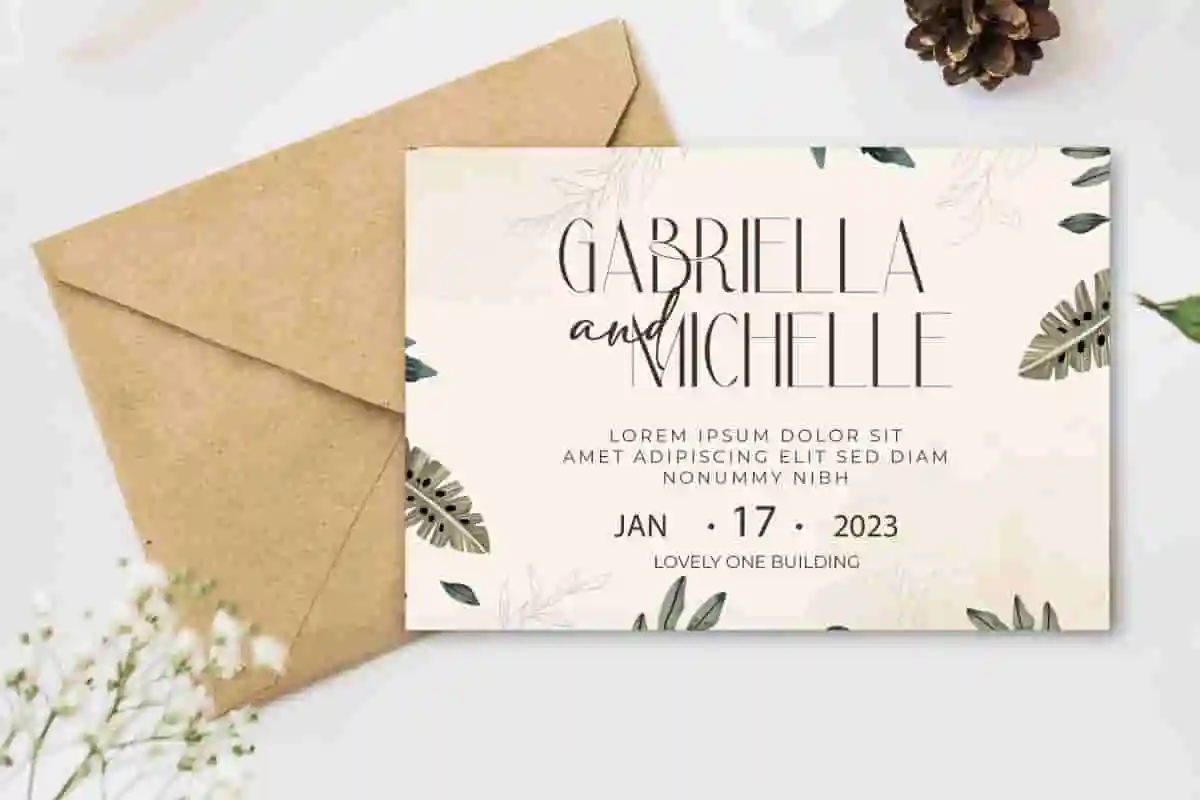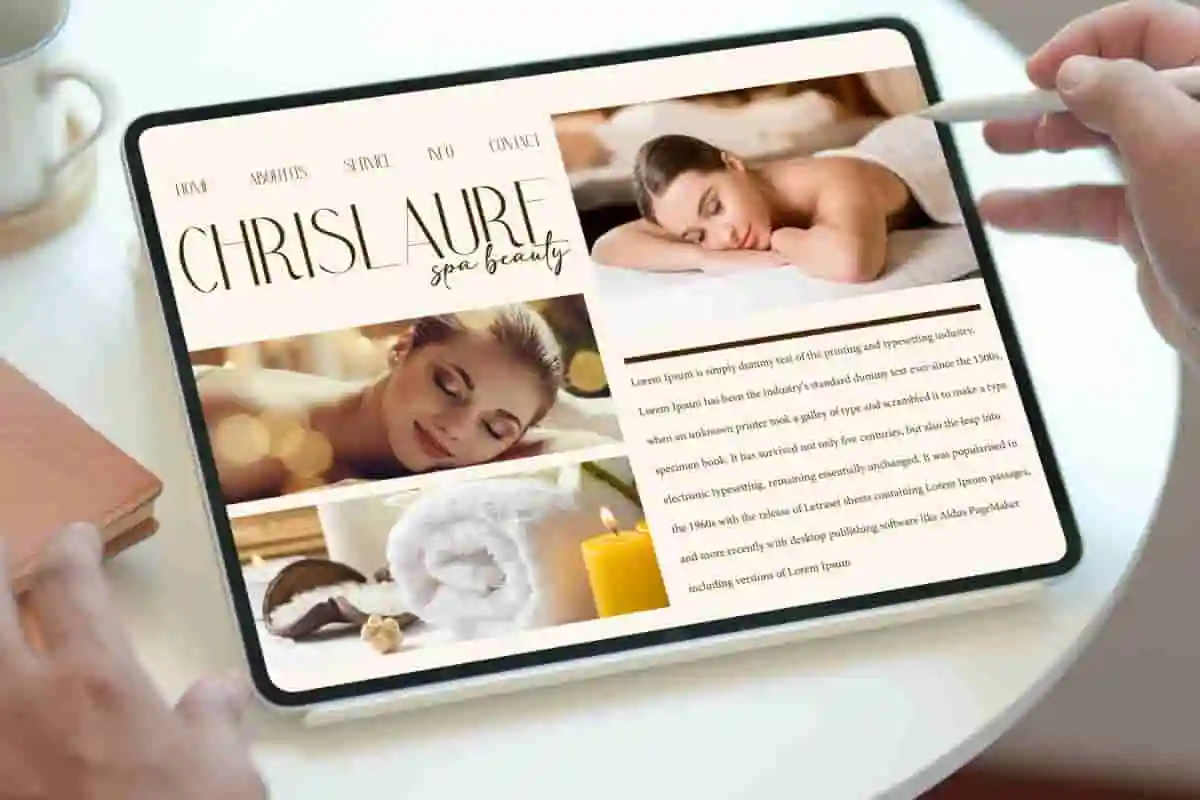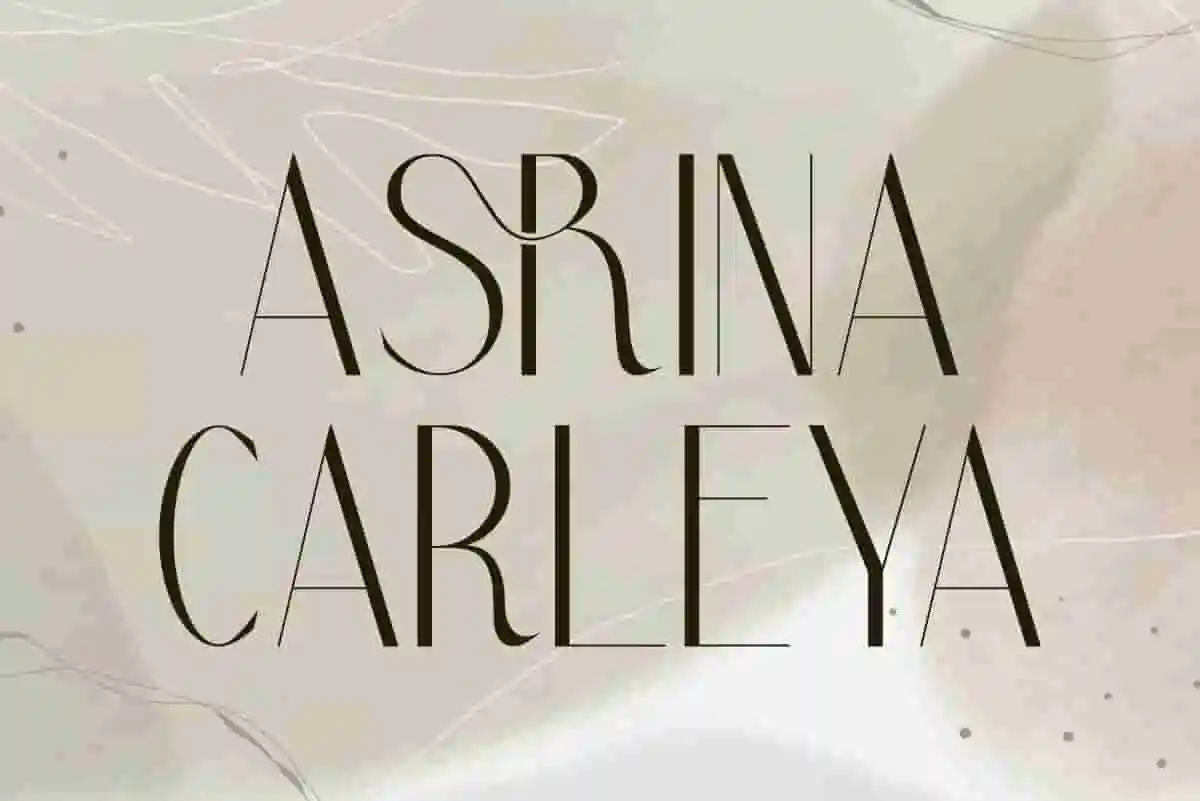
Asrina Carleya Font
Asrina Carleya Font is a elegant iconic typeface with an elaborate presence that’s begs to be seen. Ideal choice for those looking for a casual and fancy look!
Asrina Carleya Font is a thin and sleek sans serif font with unique ligature pairs in a slightly fancy feel. Perfect for accessories and gifts, boutique, business corporate, florist, graphic design, handicraft, home furniture, jewelry brand, publisher, spa salon, and much more.
Asrina Carleya Font includes full set of Uppercase and Lowercase Basic Characters, Number, Punctuation, Symbol, and Ligature. It has a modern feel with the charm of impactful letters in a contemporary touch that is perfect for digital or print purposes. Use it for banners, blogs, covers, headers, invitation, logos, mockup, product packaging, signage, stationery, sticker, template, titles, watermarks, websites, etc.